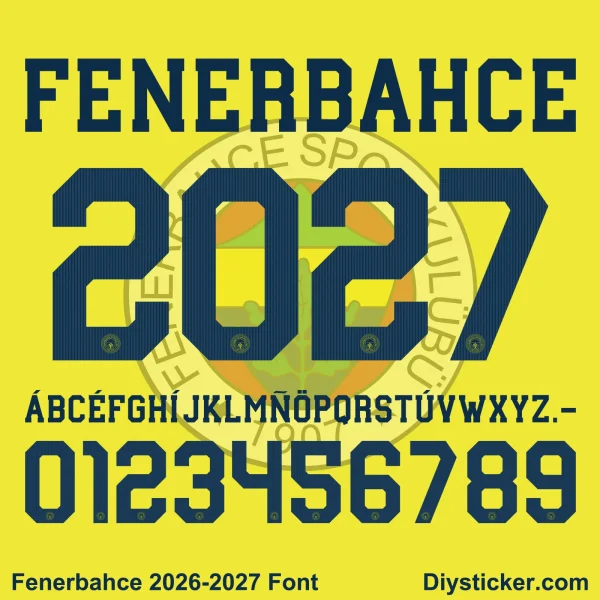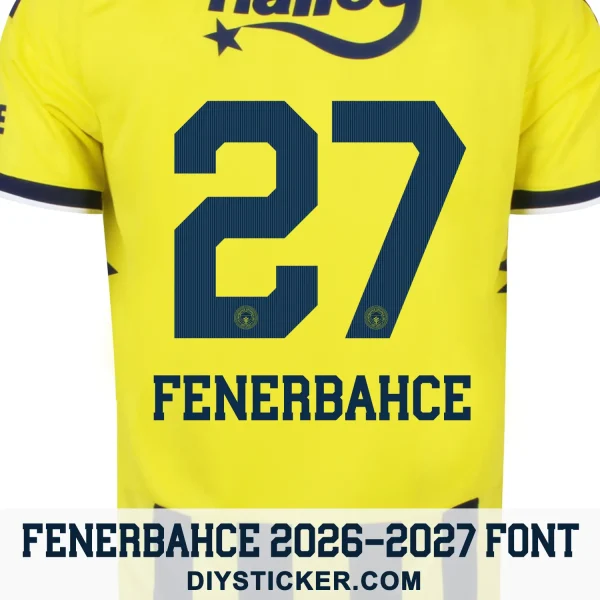
Fenerbahce 2026-2027 Font & Numbers Download
Replicate the official match-day look of the Turkish giants! This premium digital asset features the full Fenerbahce 2026-2027 Font and Numbers, expertly rendered in the club’s signature navy block structure with their subtle internal vertical pinstripe texture and precision club crest details. Perfect for authentic kit restorations and elite sports graphic projects.
Bring elite Turkish Süper Lig aesthetics straight to your design studio. This commercial-grade digital file pack gives you immediate access to the official Fenerbahce 2026-2027 font style worn during their highly competitive domestic and European campaigns. The typography features a bold, industrial block aesthetic characterized by sharp corner cuts, fine internal vertical pinstripe textures woven through the glyphs, and the intricate Fenerbahçe SK club emblem beautifully nested at the base of every single digit.
True-to-Life Character Architecture
A-Z Latin Uppercase Letters: Perfectly balanced letterforms built for clear legibility on the pitch and accurate player nameplates.
0-9 Pinstriped Numbers: Striking geometric numerals highlighted by clean vertical textured lines and pre-embedded team crest details.
Special Linguistic Diacritics: Complete with specific accents and special characters (
Á,Ć,É,Ñ,Ö,Ü, etc.) required to render international star player names with total authenticity.